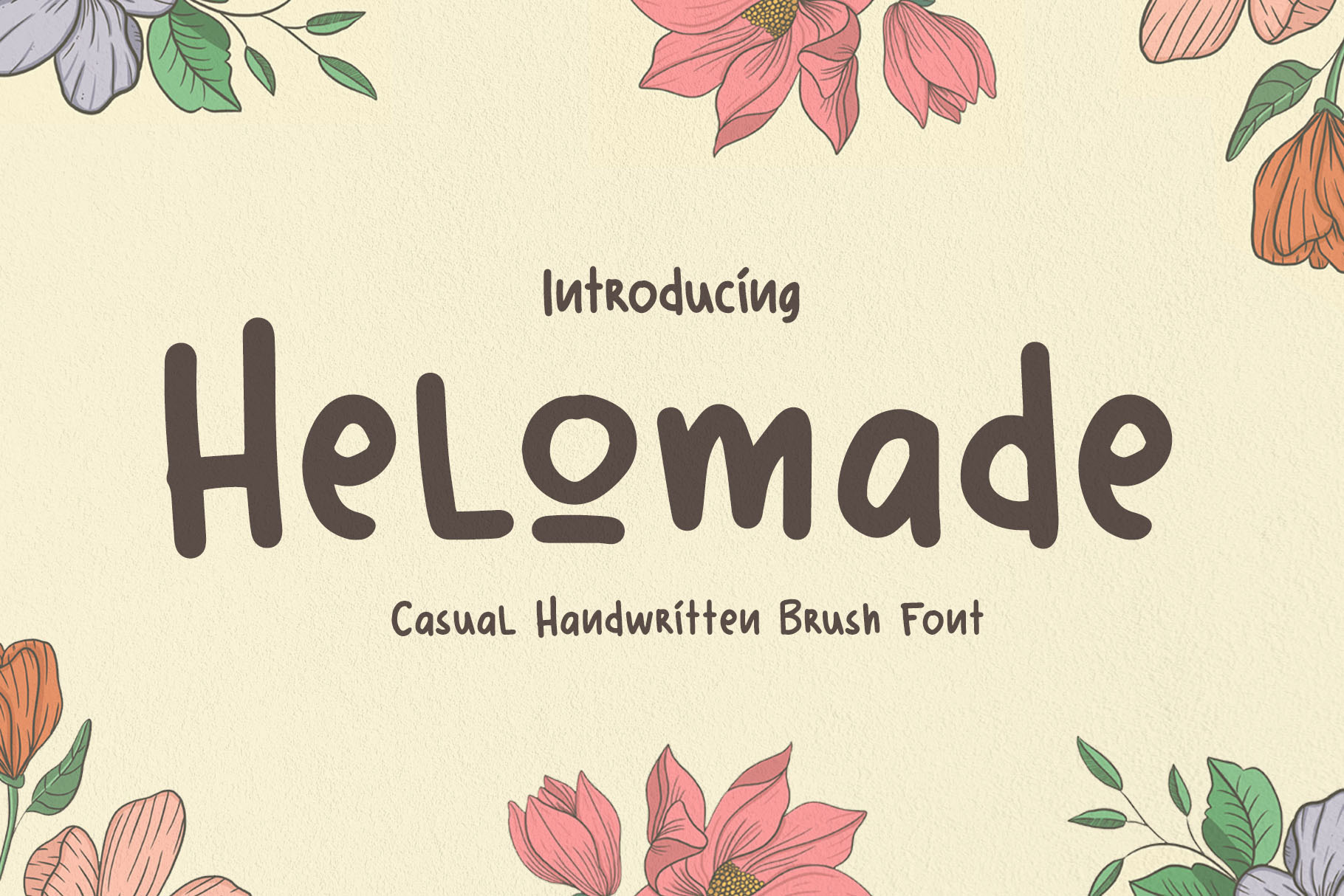
Helomade Font
Helomade font named from Indonesia - Balinese language, this font is an authentic font with a suitable form like handwriting. This font was created to complement some designs such as quotes, invitations, texts, novels, storybooks, and everything that requires some touch of handwriting. This font is also supported multi-languages. Please try using this font, feel the sensation of Helomade's handwritten.